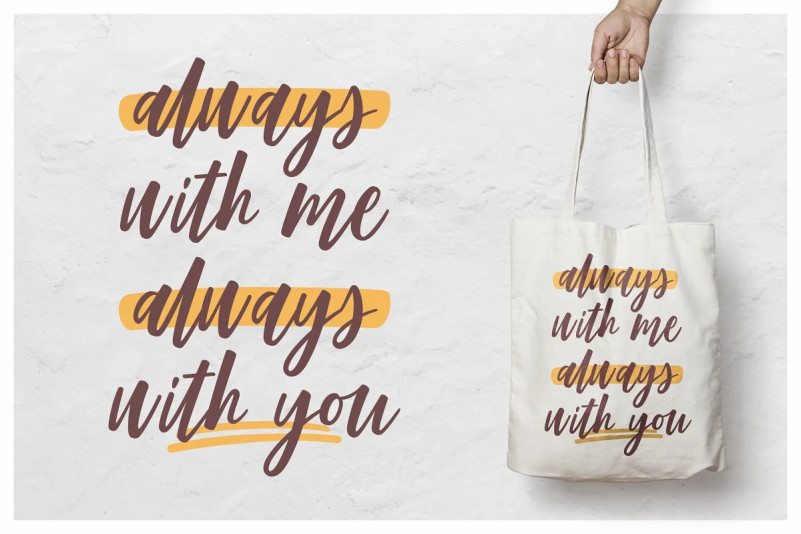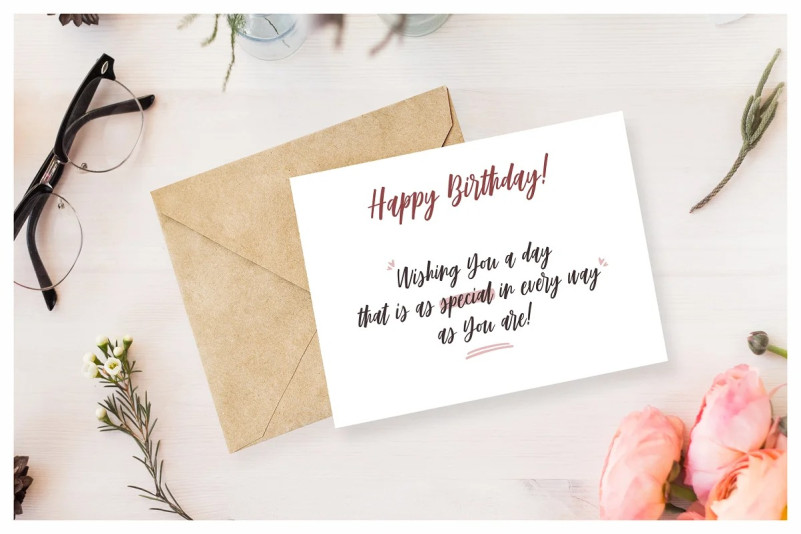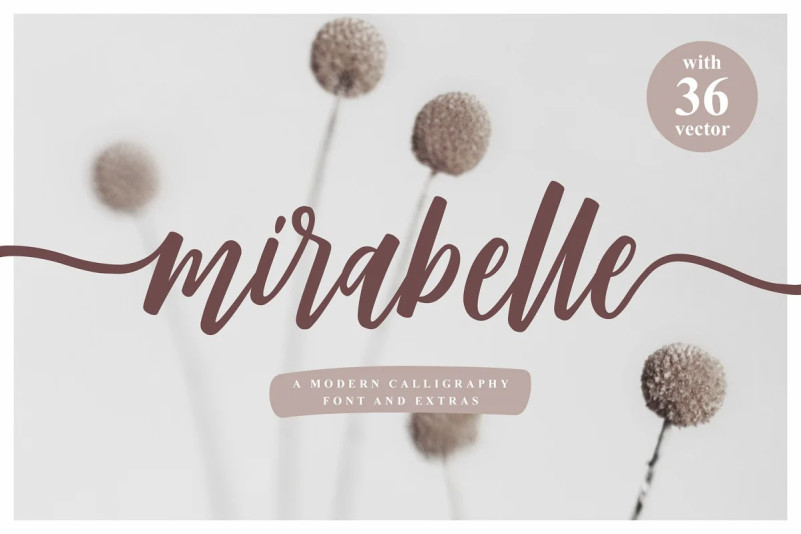
Mirabelle Font
Mirabelle Script Font is a beautiful script font. it has classy, elegant and modern look for every design that needs a handwritten touch
Mirabelle created from brush pen with modern calligraphy technique, it’s perfect for a wedding invitations, save the date cards, fine art papery, feminine branding or personal gift cards